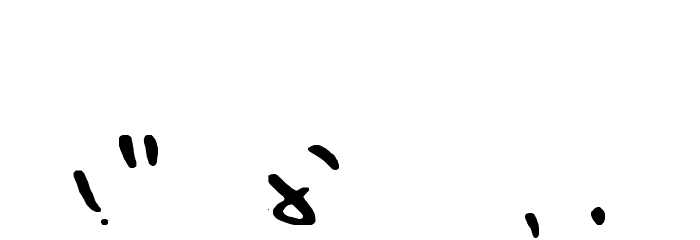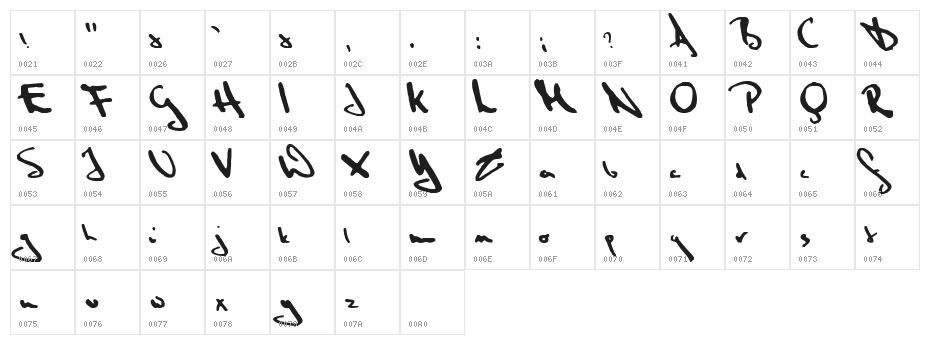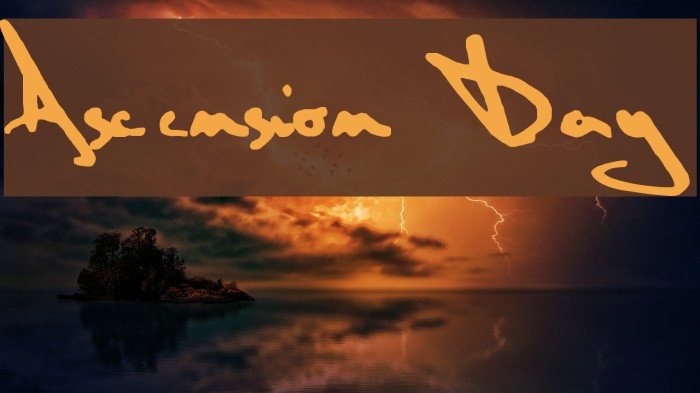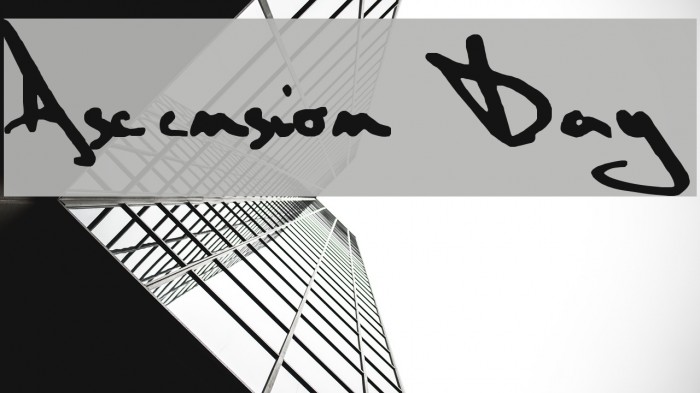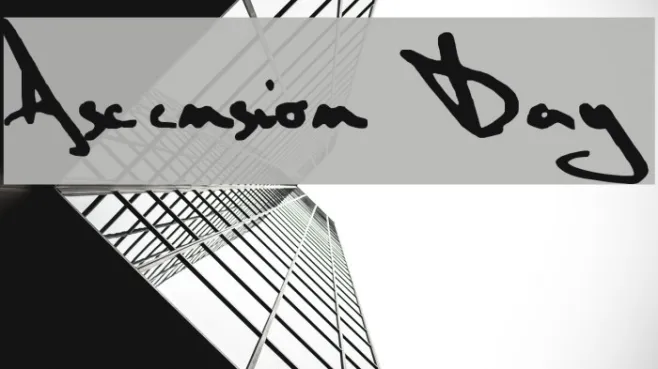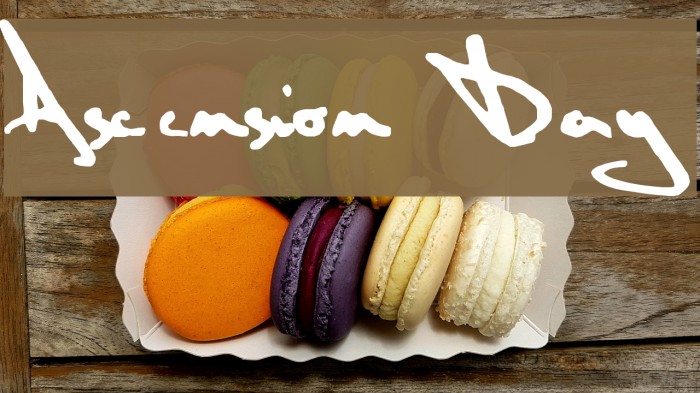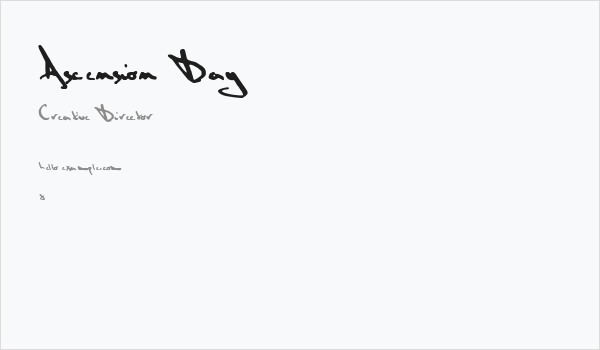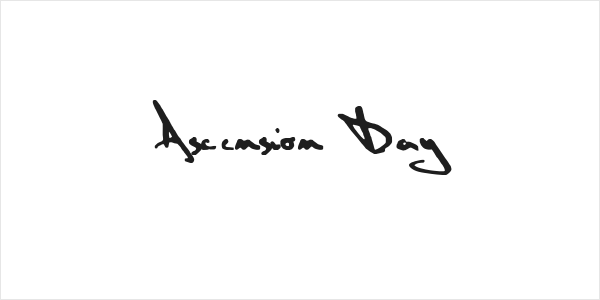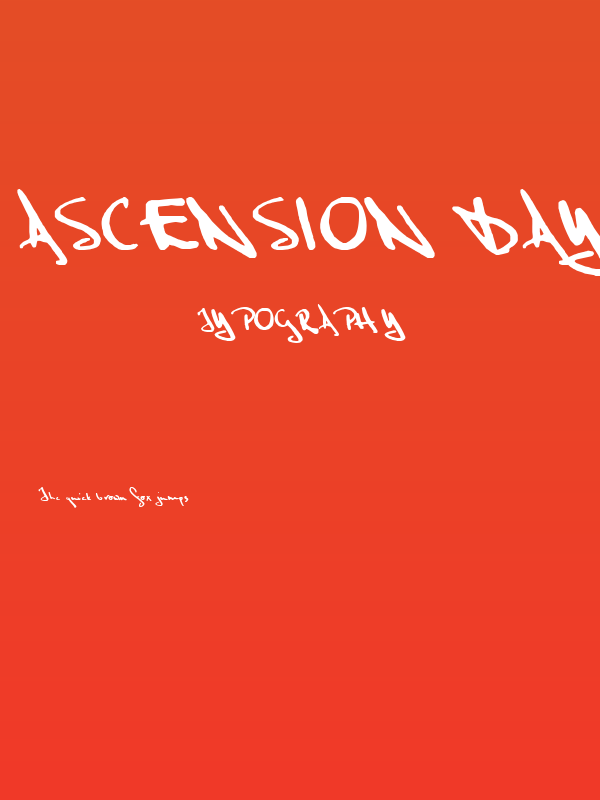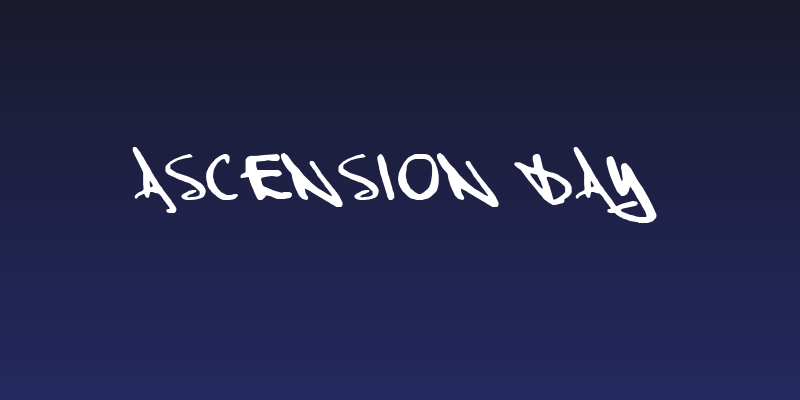
Ascension Day Font
Ascension Day Description
This font exudes a dynamic and expressive handwritten style, characterized by its fluid and irregular strokes. The uppercase letters display a bold and confident presence, while the lowercase letters maintain a playful and spontaneous appearance. The overall design is reminiscent of a personal signature, with varying line thicknesses that add a sense of movement and energy. The characters are slightly slanted, enhancing the informal and casual feel. This font captures the essence of a lively and creative handwriting, making it suitable for projects that require a personal touch.